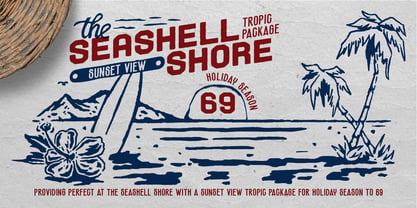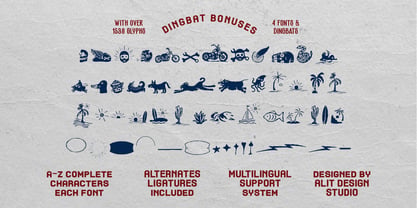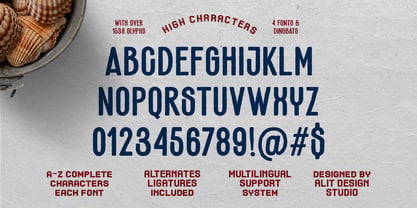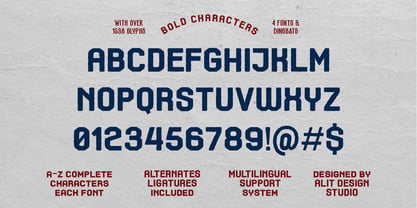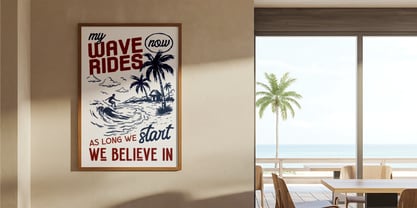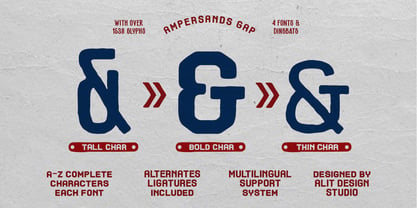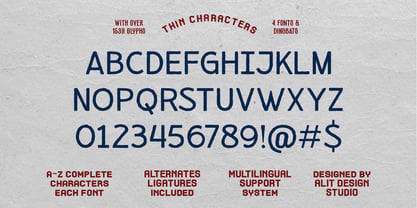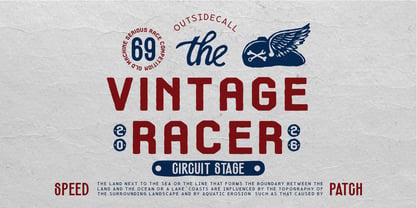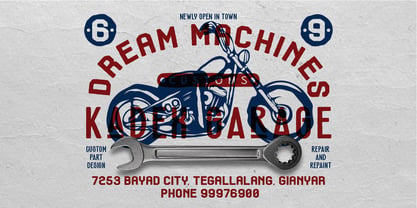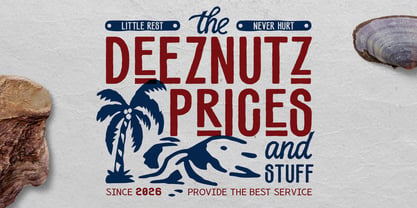
Soltisce Coast
by Alit Design
The Soltisce Coast Font Family was designed by Alit Suarnegara and published by Alit Design. Soltisce Coast contains 4 styles and family package options. More about this family
Soltisce Coast Typeface – Vintage Surf & Garage Collection Soak up the sun and rev the engine. Welcome to Soltisce Coast, a typeface that seamlessly blends the laid-back vibes of a tropical island with the rugged grit of a custom motorcycle garage. Designed with an authentic hand-stamped texture, Soltisce Coast is not just a font—it is a complete design toolkit. Whether you are branding a beach club in Bali, designing merchandise for a surf shop, or creating a logo for a custom mechanic, this typeface brings an instant heritage feel that usually takes hours to illustrate by hand. 🌴 The Aesthetic Soltisce Coast captures the essence of the "perfectly imperfect." It features rough edges, varying heights, and a tangible texture that looks great on screen and even better in print. It bridges the gap between Retro Tropical and Rugged Industrial. ✨ Key Features & Highlights Massive Glyph Collection: With over 1,538 glyphs, this is a powerhouse font. You aren't just getting letters; you are getting endless variations to ensure your text never looks repetitive. 4 Distinct Styles: Thin: Clean, refined, and perfect for secondary text. High (Regular): The standard stature for clear readability. Bold: Heavy and impactful for headlines. Tall: A condensed variation for fitting big messages in small spaces. Smart "Alternation Gap": Soltisce Coast is engineered with smart OpenType features. As seen in the previews, letters interact dynamically (like the "RR" connection), creating unique gaps and connections that mimic hand-painted signage. Extensive Dingbat Bonus: No need to buy separate illustrations. This pack includes a vast library of matching vector icons including: Tropical: Palm trees, sunsets, waves, fish, surfboards. Garage/Biker: Skulls, motorcycles, wrenches, pistons, snakes. Multilingual Support: A comprehensive system supporting a wide range of languages. 🎨 Perfect For: Apparel Design: T-shirts that look vintage right off the press. Logo Design: Coffee shops, beach bars, barber shops, and garages. Social Media: Eye-catching quotes and poster designs. Packaging: Labels for craft beer, hot sauce, or pomade. Bring the heat to your next project. Download Soltisce Coast today and start creating designs that tell a story.
Designers: Alit Suarnegara
Foundry: Alit Design